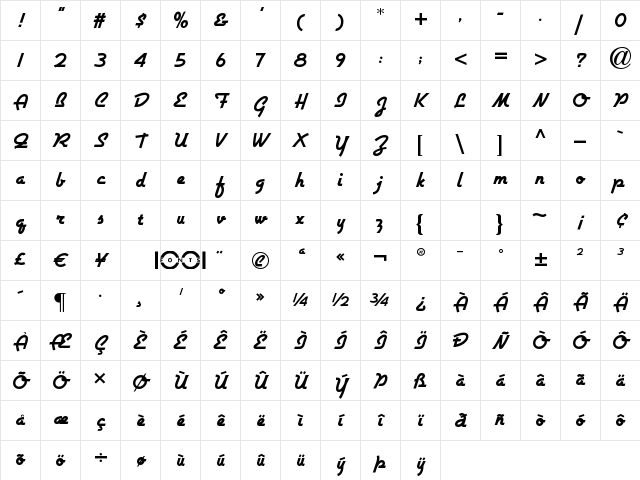
Airstream NF Regular
Foundry: Nick's Fonts
Designer: Nick Curtis
Design Context for Airstream NF
Airstream NF is a composed and adaptable typeface that performs quietly and consistently across a wide range of design contexts.